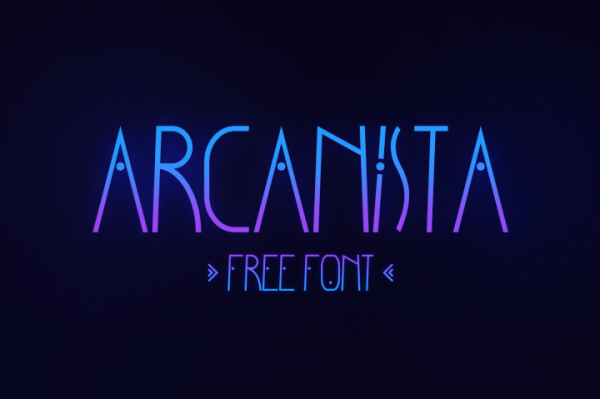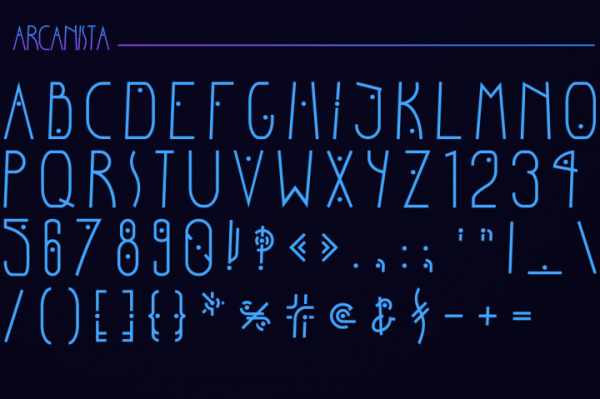
Freebie Wednesday: Arcanista Typeface
The Hungry JPEG has a great freebie to add to your font collection. Arcanista by Victor Tramontin is a creative font and can be used in personal or commercial projects.